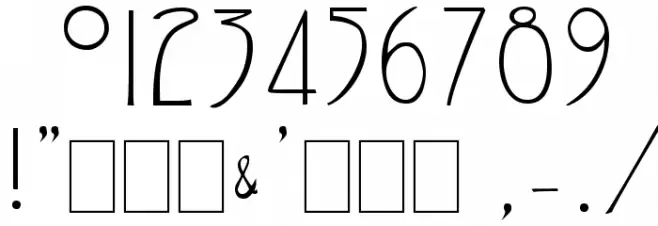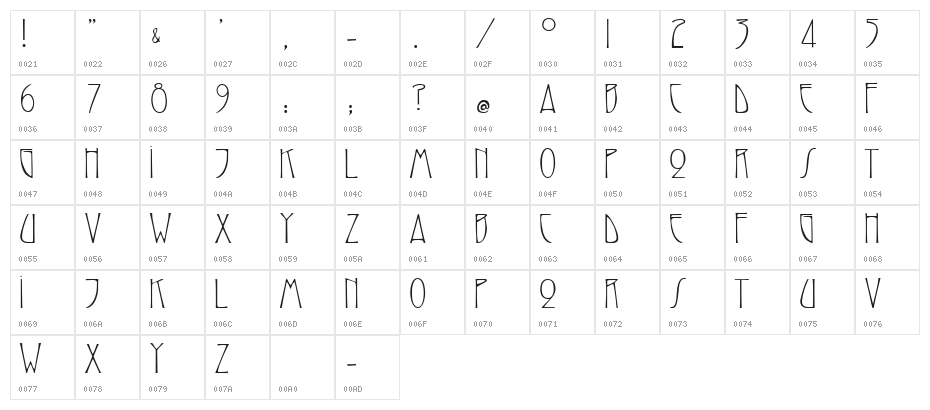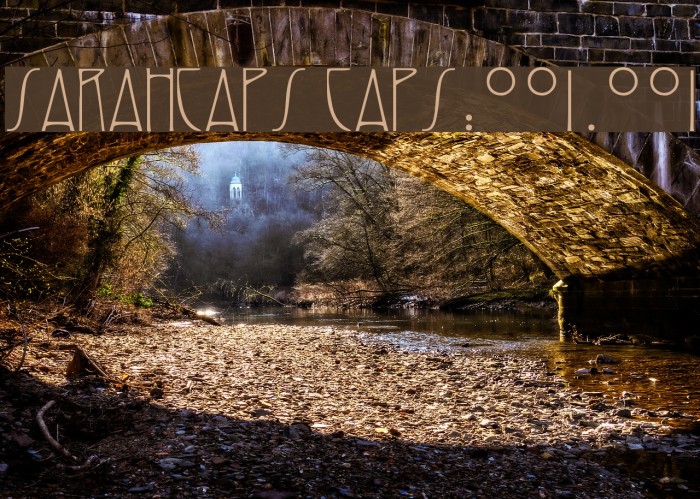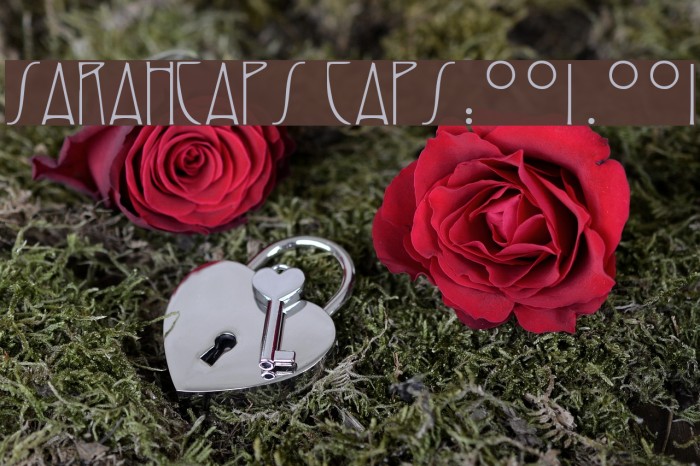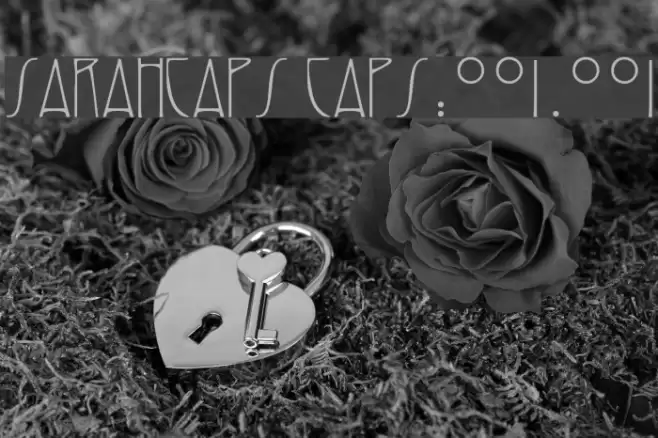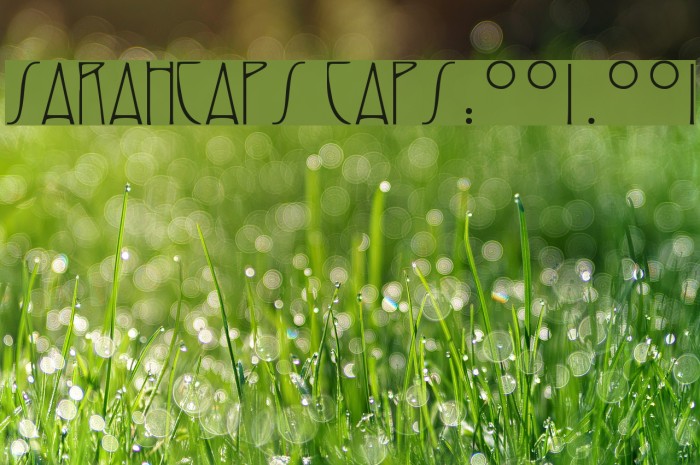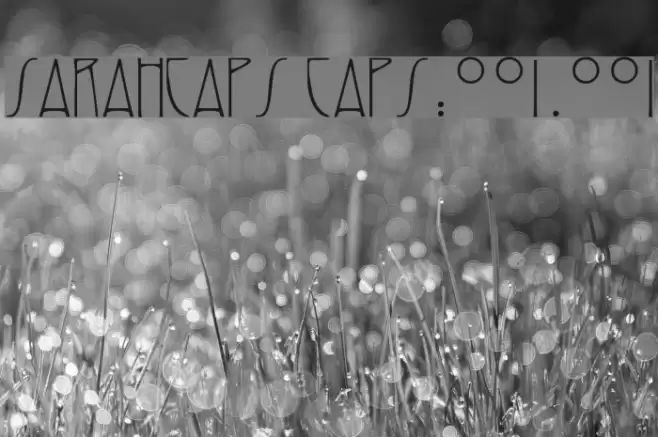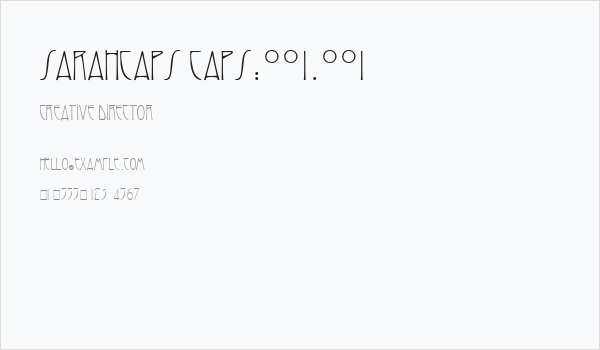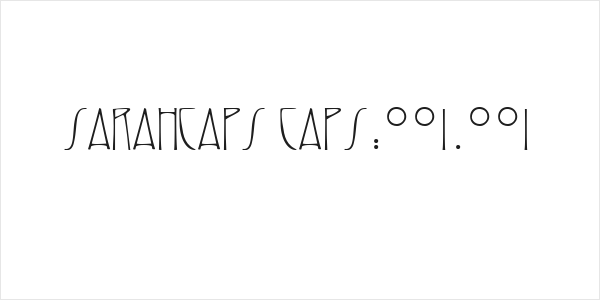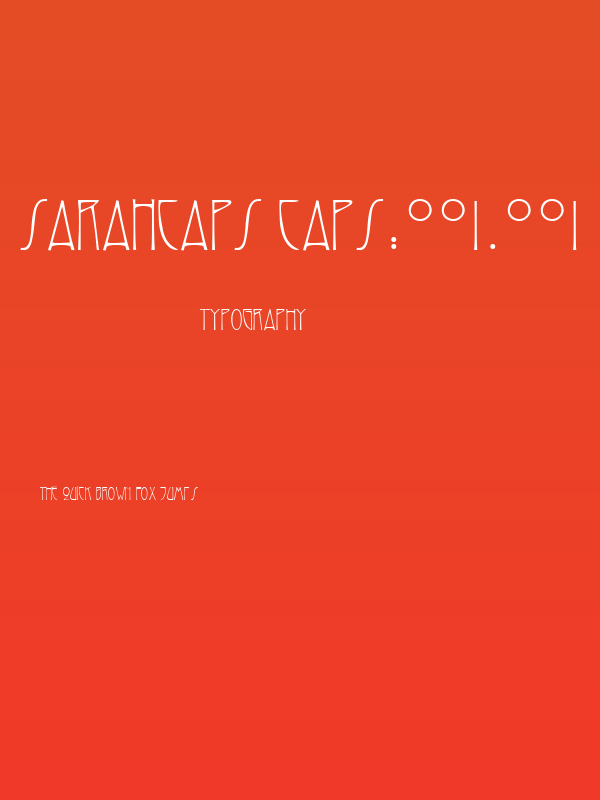
SarahCaps Caps:001.001 Font
SarahCaps Caps:001.001 Description
This font features a distinctive, elongated style with thin, elegant lines and a modern aesthetic. The characters are tall and narrow, giving a sleek and sophisticated appearance. The uppercase and lowercase letters maintain a consistent height, contributing to a uniform look. The numerals and special characters are designed to complement the letters, maintaining the same thin and elongated characteristics. The overall design is minimalistic yet striking, making it suitable for projects that require a touch of elegance and modernity.
| Proposed Projects | Ideal for fashion magazines, luxury branding, modern art posters, and high-end product packaging. |